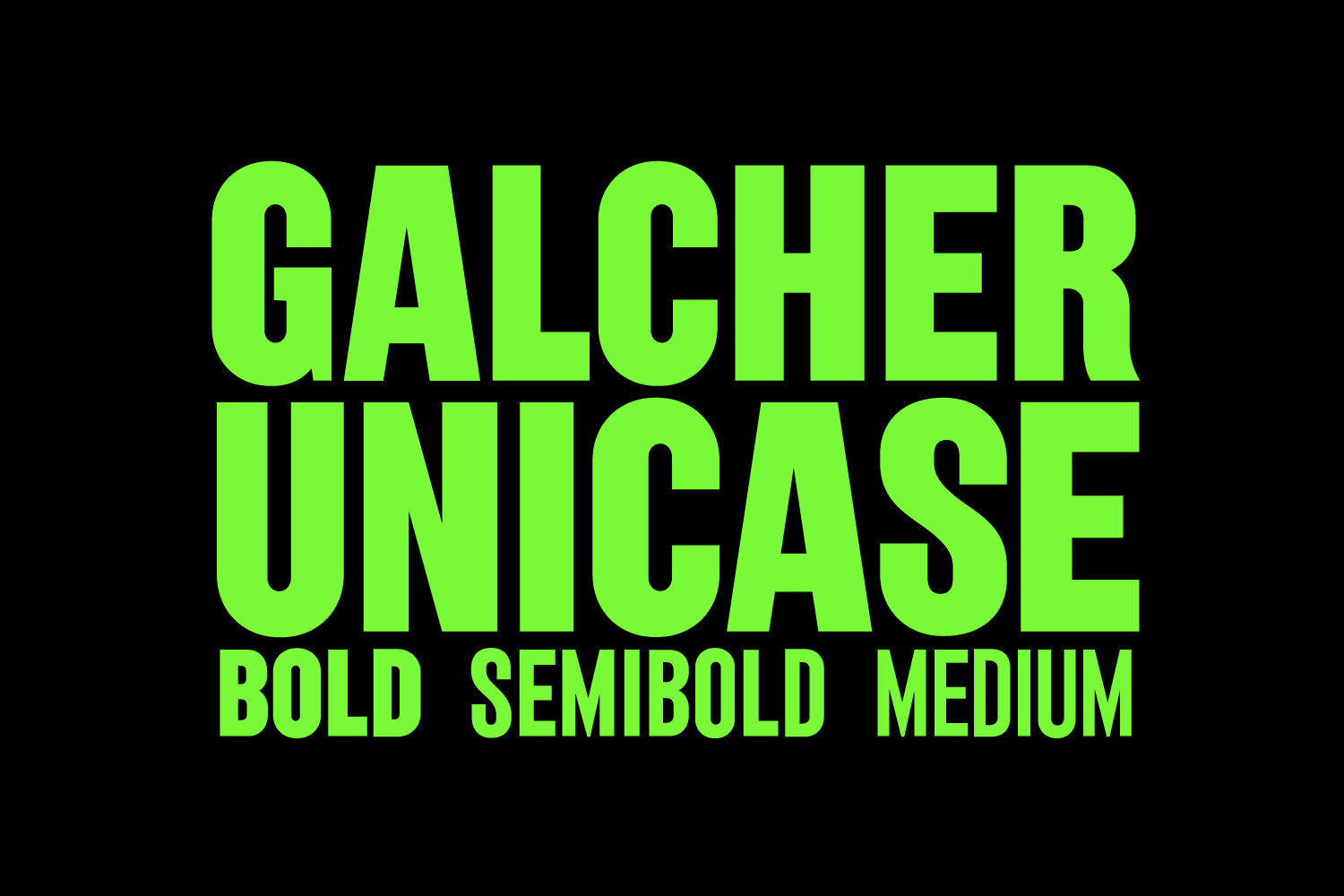
GALCHER is a cool, fashionable and powerful modern unicase font, designed for being used in titles and headlines. Also it works amazing all over the project, just have a look at the examples above. It's designed in 3 weights: Bold, Semibold and Medium. Galcher is cosy, simple and readable, and looks amazing in both big and small scales. It's great for social media, headlines, large-format print, editorial, branding, posters, fashion designs and websites — everything that strives for being confident and cool.
- Unicase
- 3 Weights (Bold, Semibold, Medium)
- Extensive Latin script support